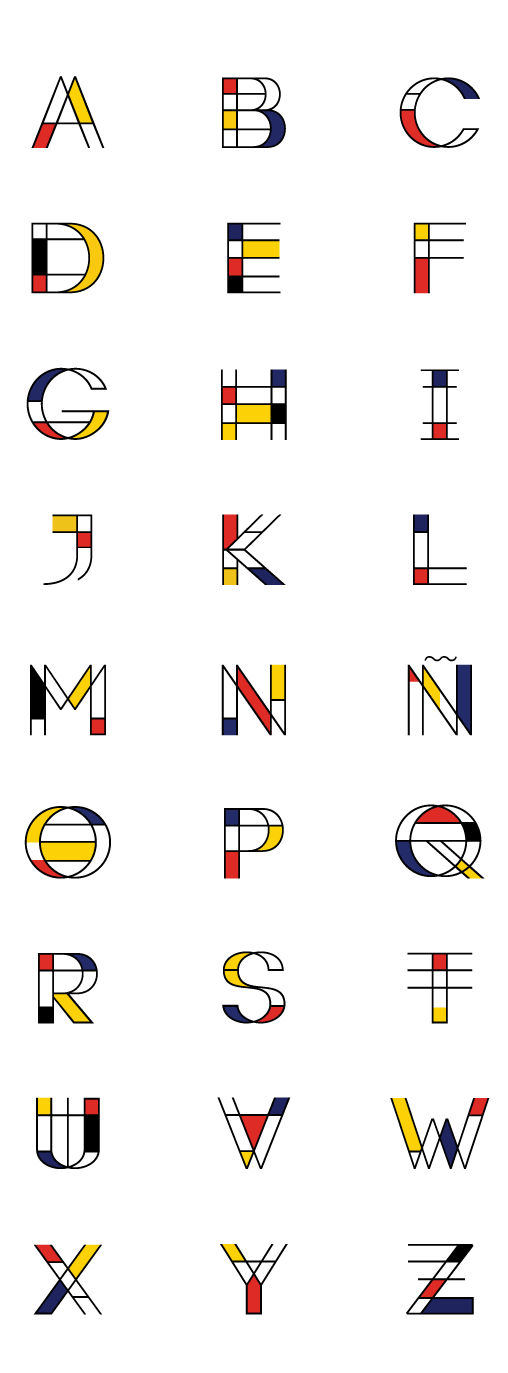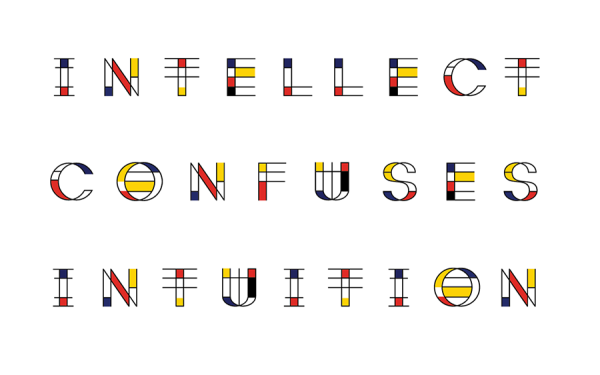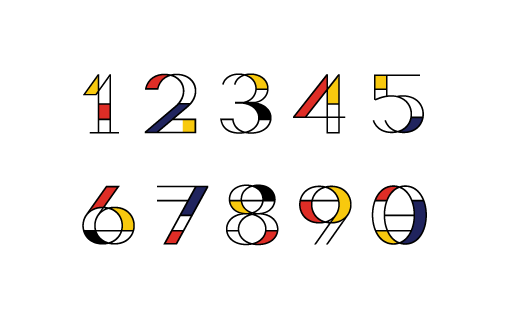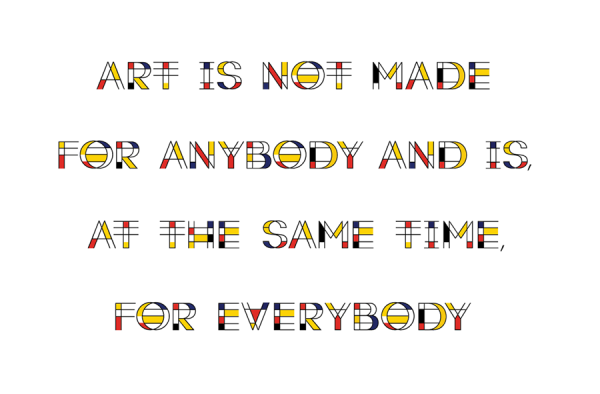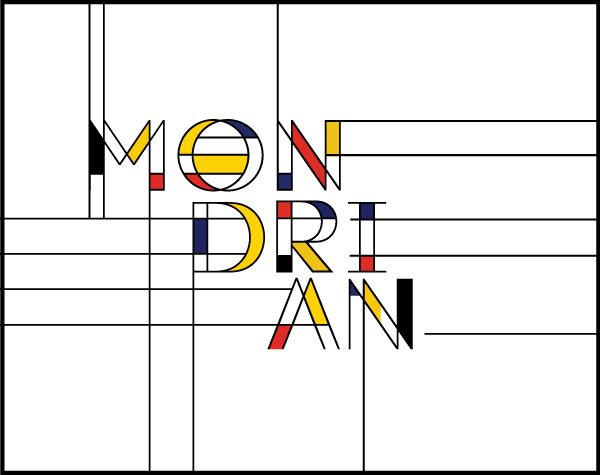
MONDRIAN
Piet Mondrian was an important contributor to the De Stijl art movement and group.
He evolved a non-representational form which he termed neoplasticism.
This consisted of white ground, upon which was painted a grid of vertical
and horizontal black lines and the three primary colors.
Mondrian was against the use of diagonals, but in my typographic version,
I think it would be completely orthogonal, would reach a result monotonous and uninteresting.
Sorry Mr. Mondrian.
He evolved a non-representational form which he termed neoplasticism.
This consisted of white ground, upon which was painted a grid of vertical
and horizontal black lines and the three primary colors.
Mondrian was against the use of diagonals, but in my typographic version,
I think it would be completely orthogonal, would reach a result monotonous and uninteresting.
Sorry Mr. Mondrian.
Designer: Tano Veron
Publisher: Tano Veron